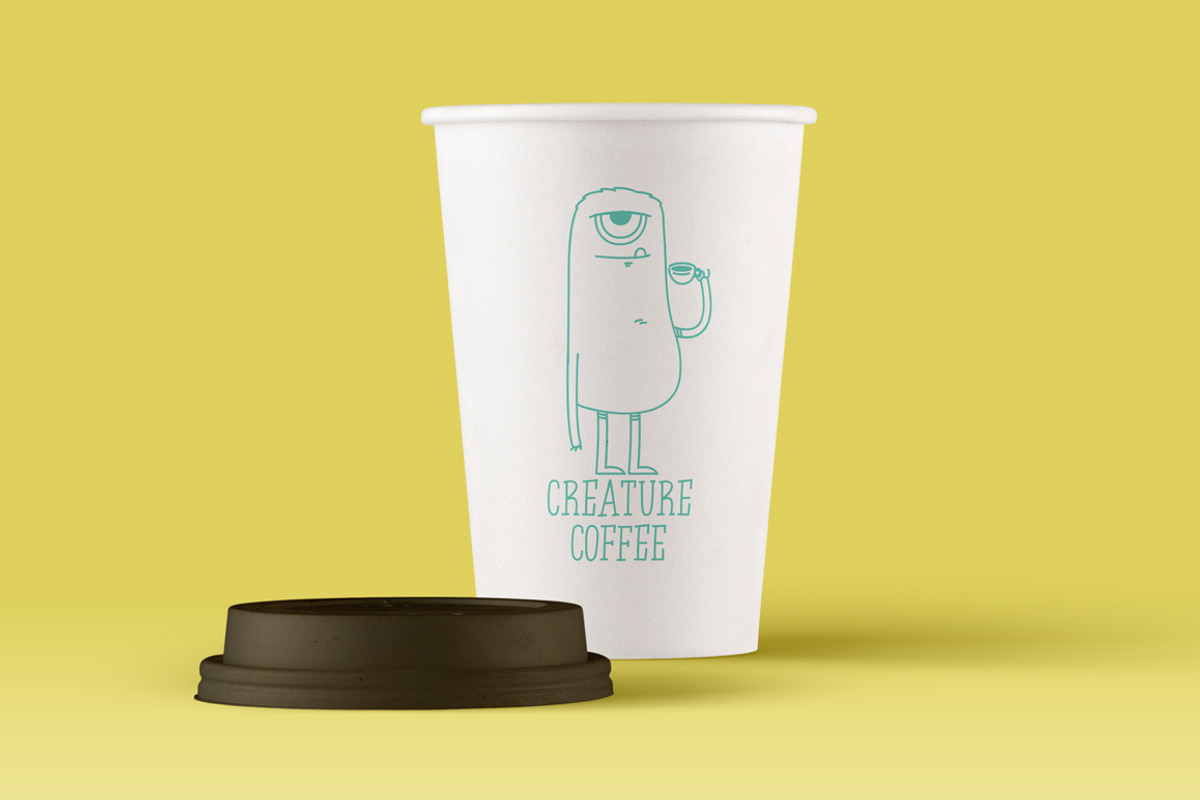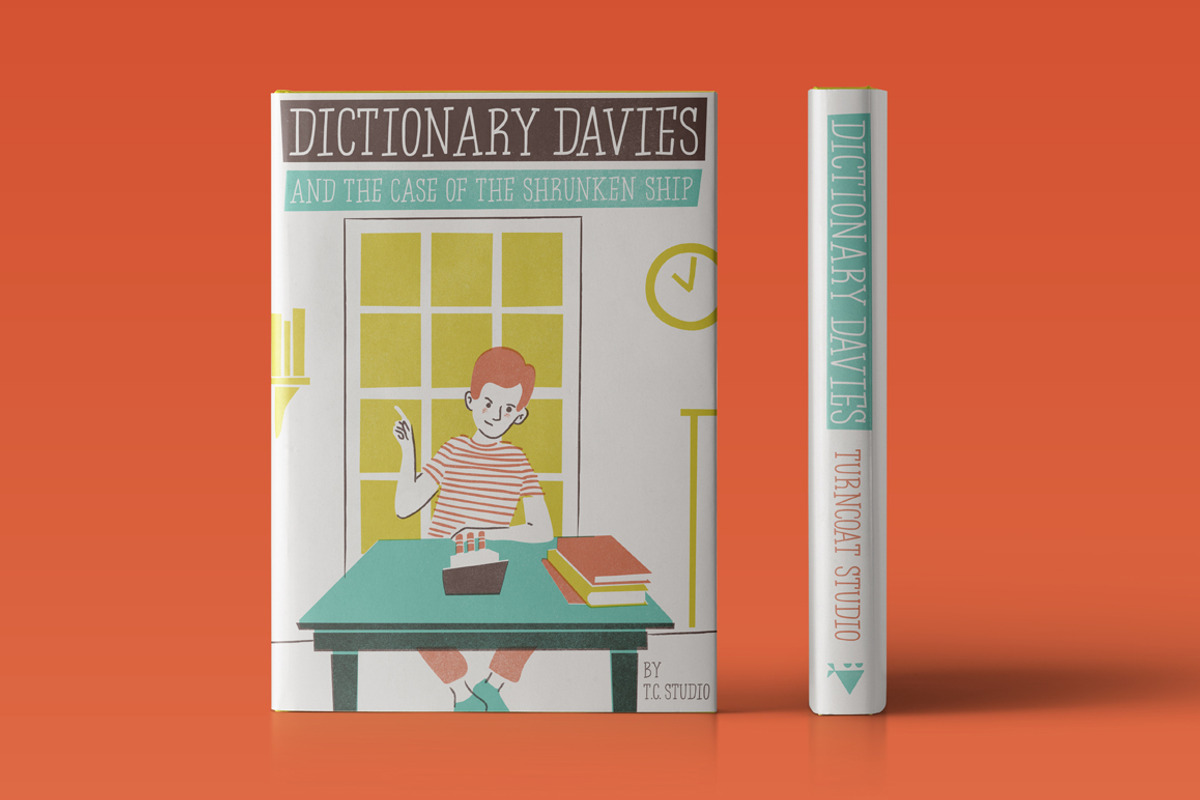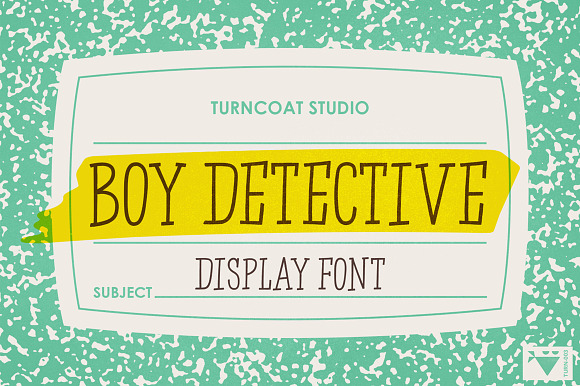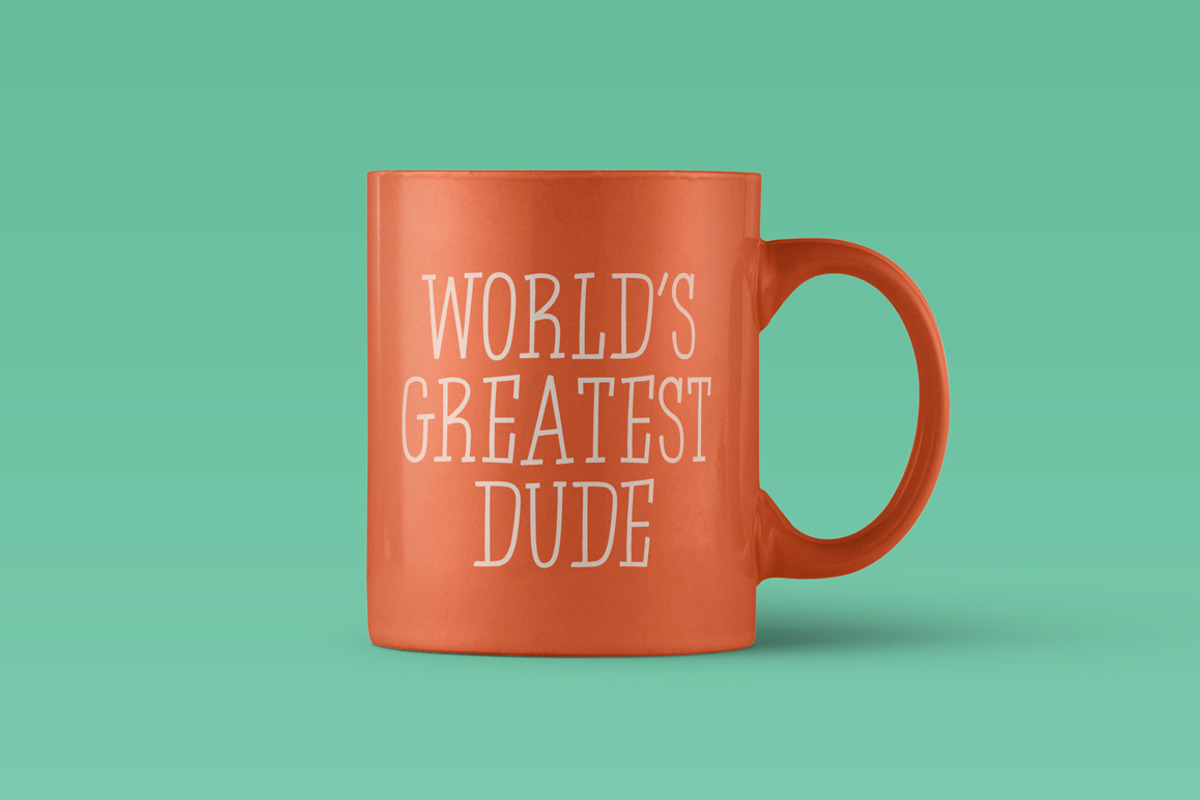
Boy Detective Font
Boy Detective is a hand-drawn serif display font inspired by mid-century illustration and animation. Use this quirky typeface to solve the mysteries of design, uncover those branding secrets, or just spruce up your t-shirts, logos, posters, packaging, and invitations!